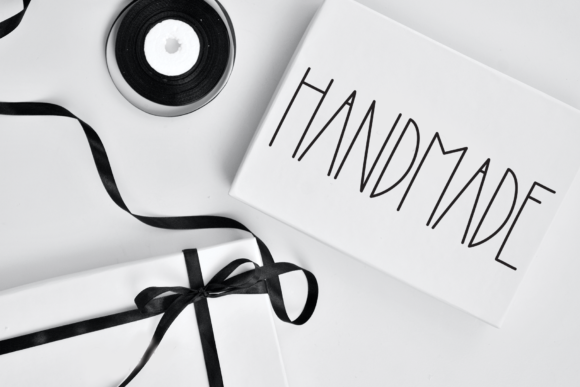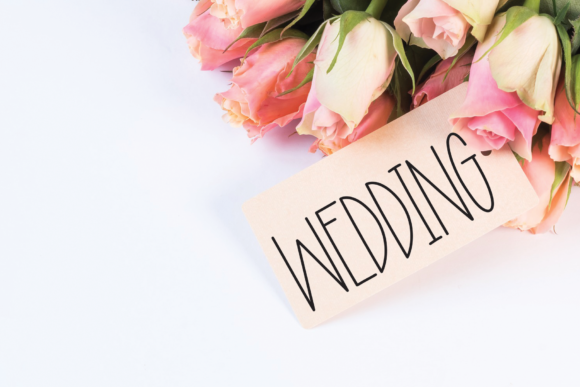
Notebook Font
db-ku.com - Script & Handwritten -- Notebook is a thin and clean handwritten font. It can be used for various design ideas, both formal and informal. Use it confidently and you will like the results.